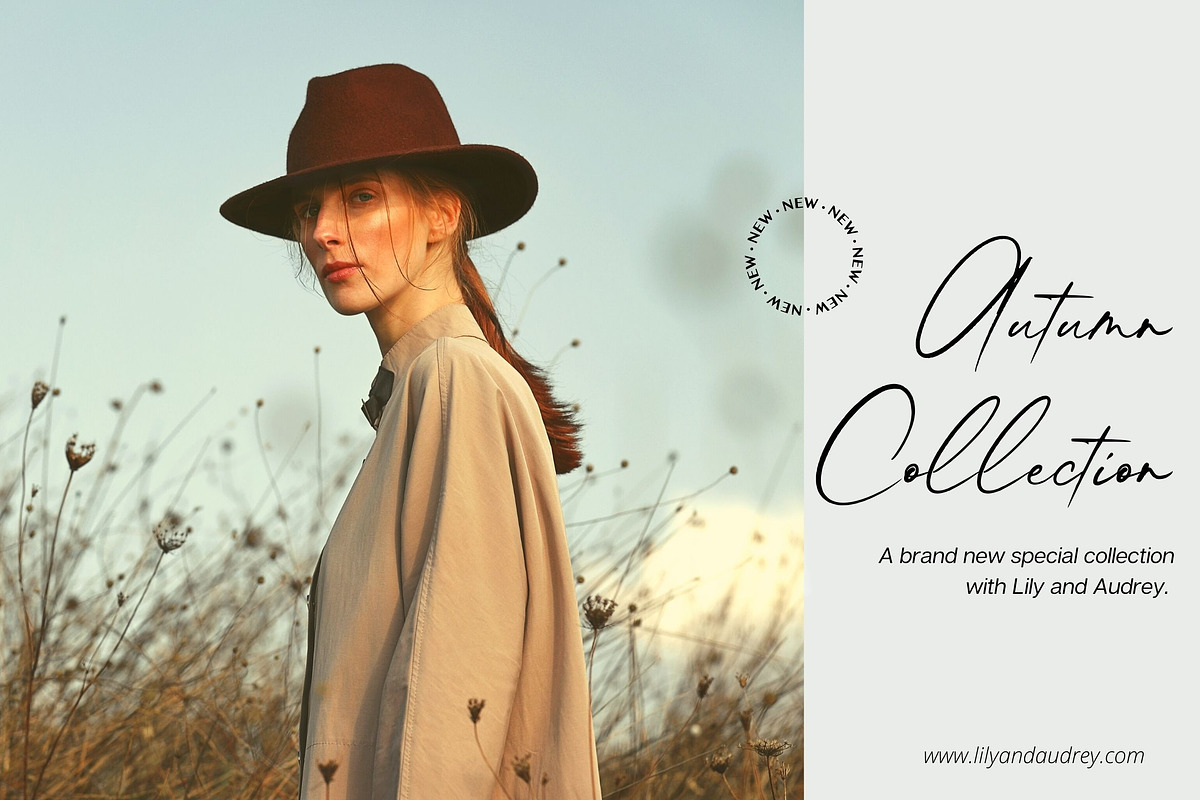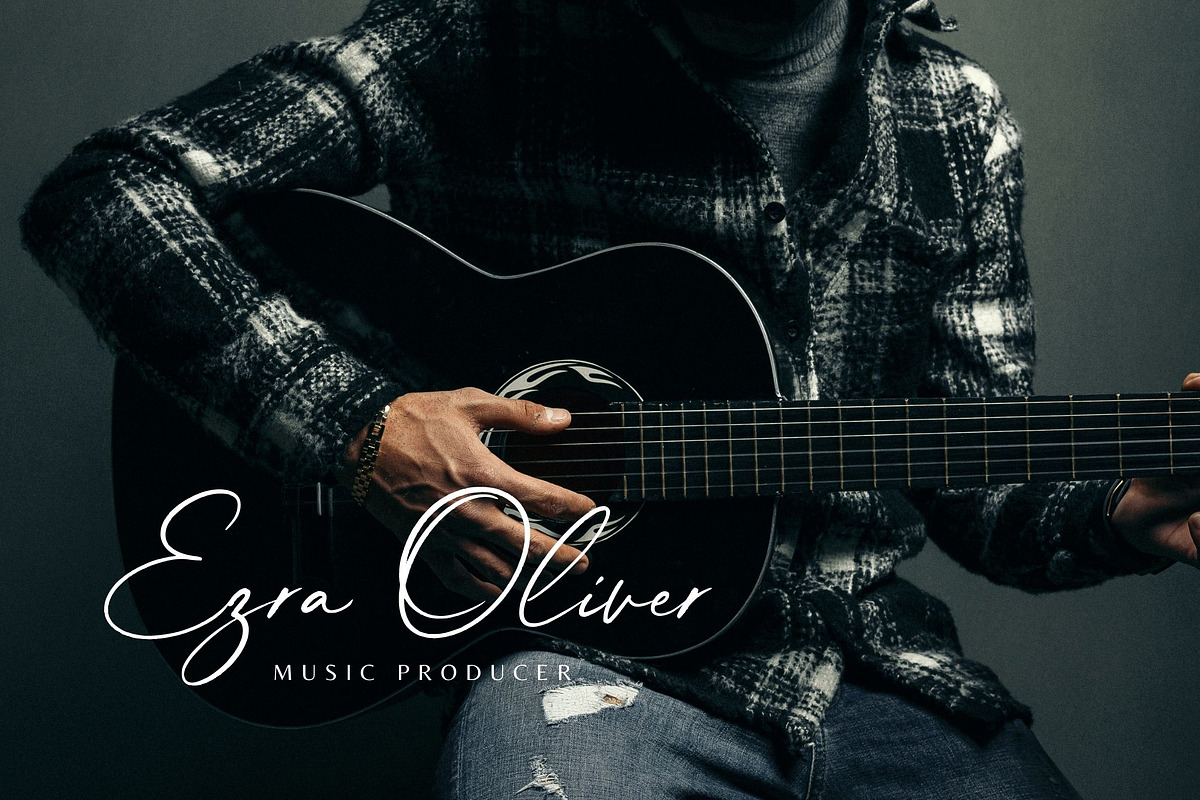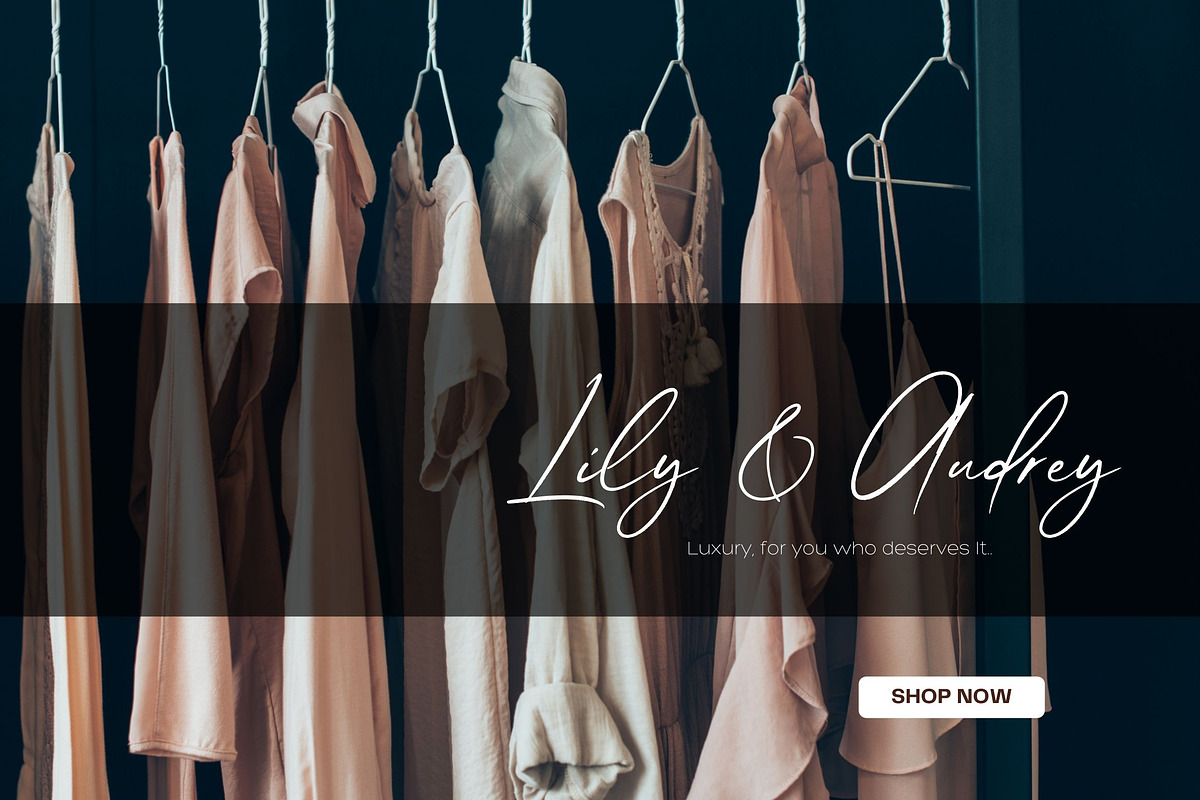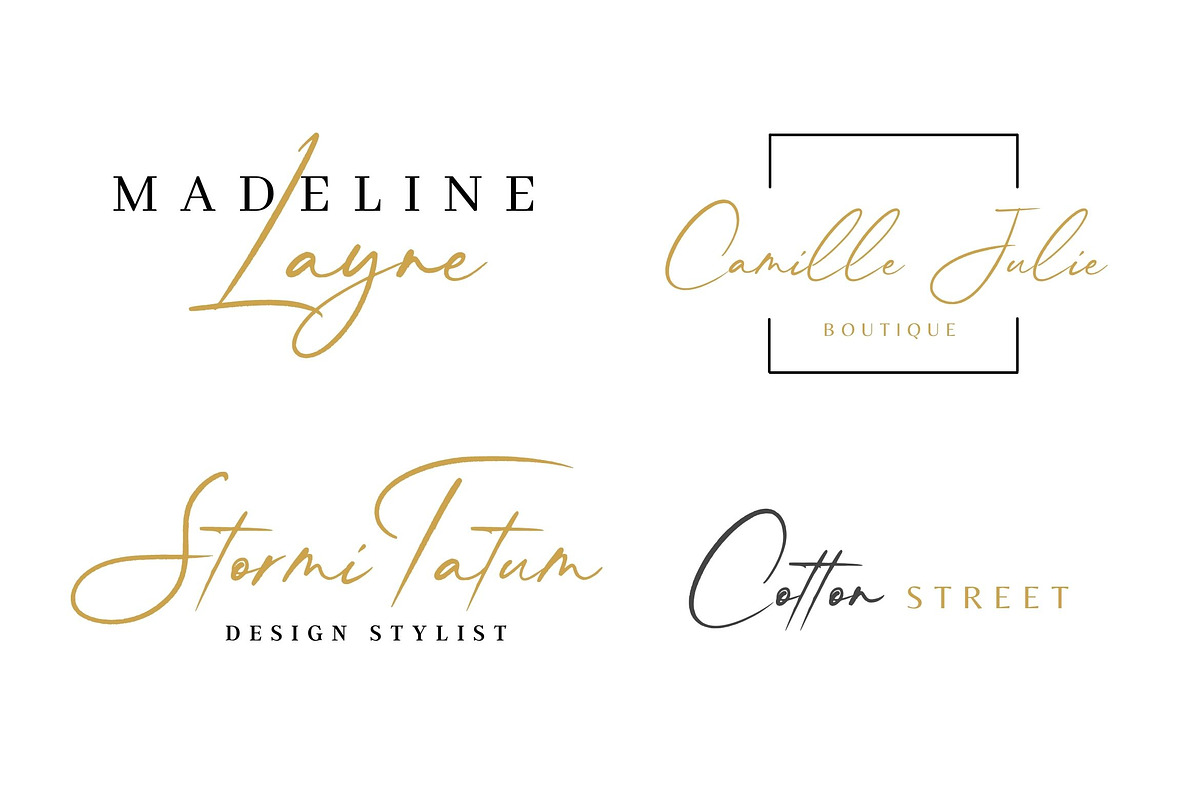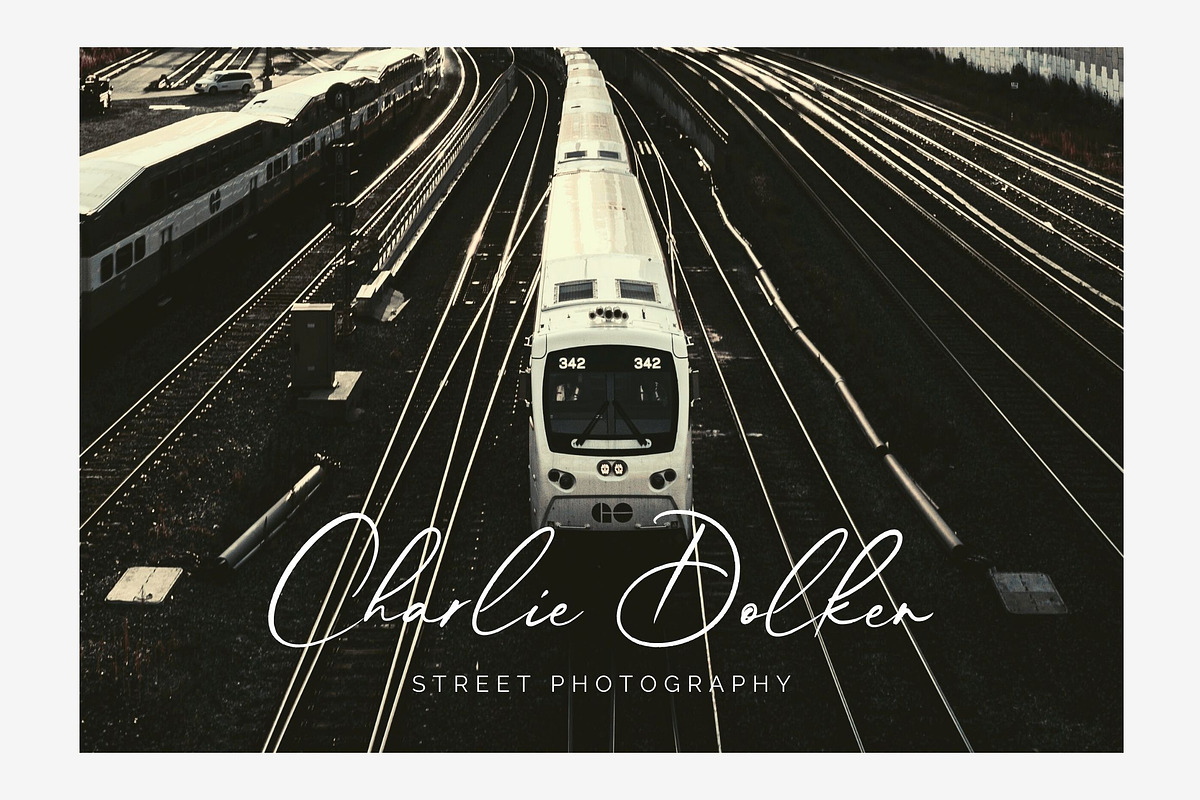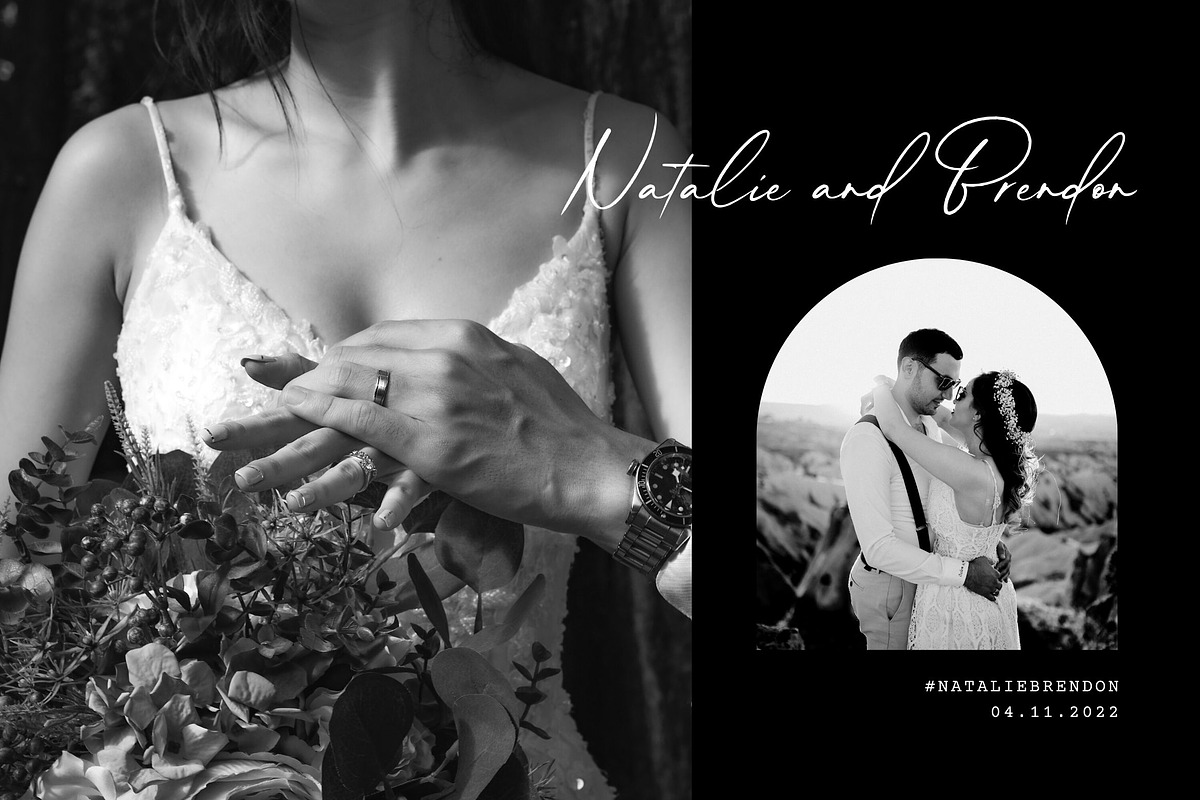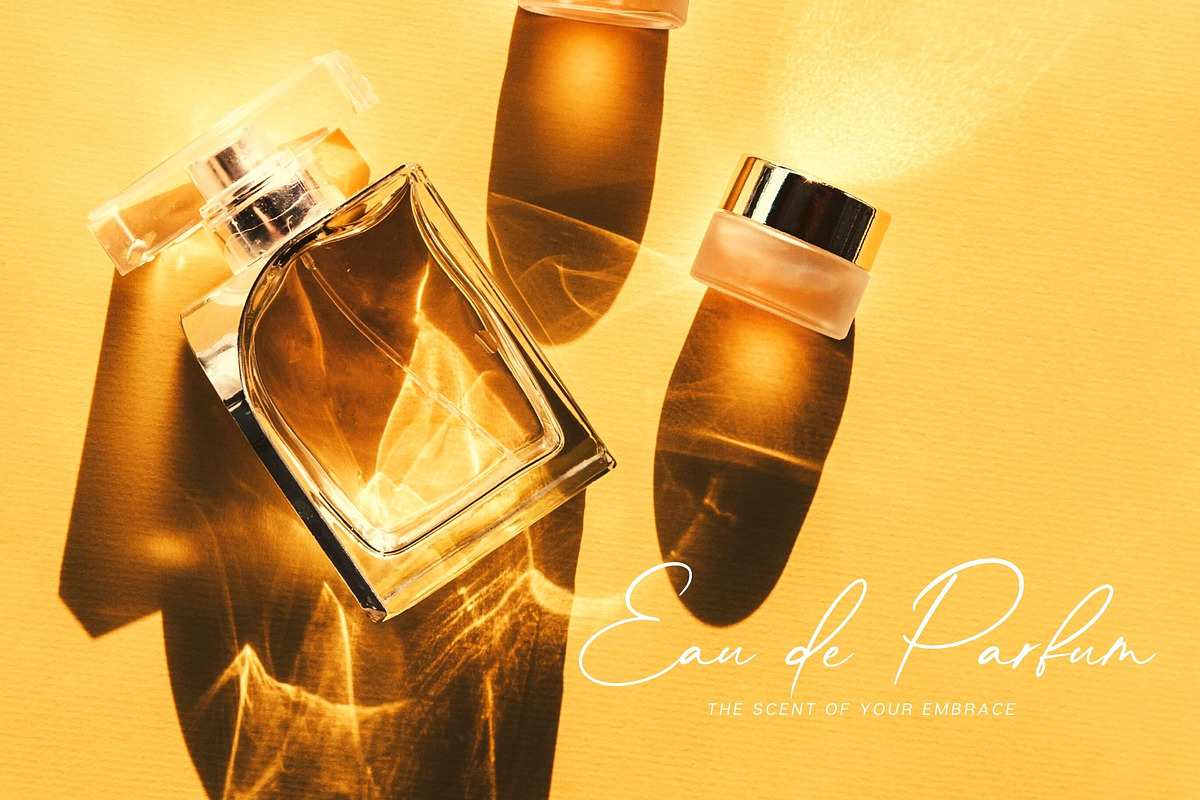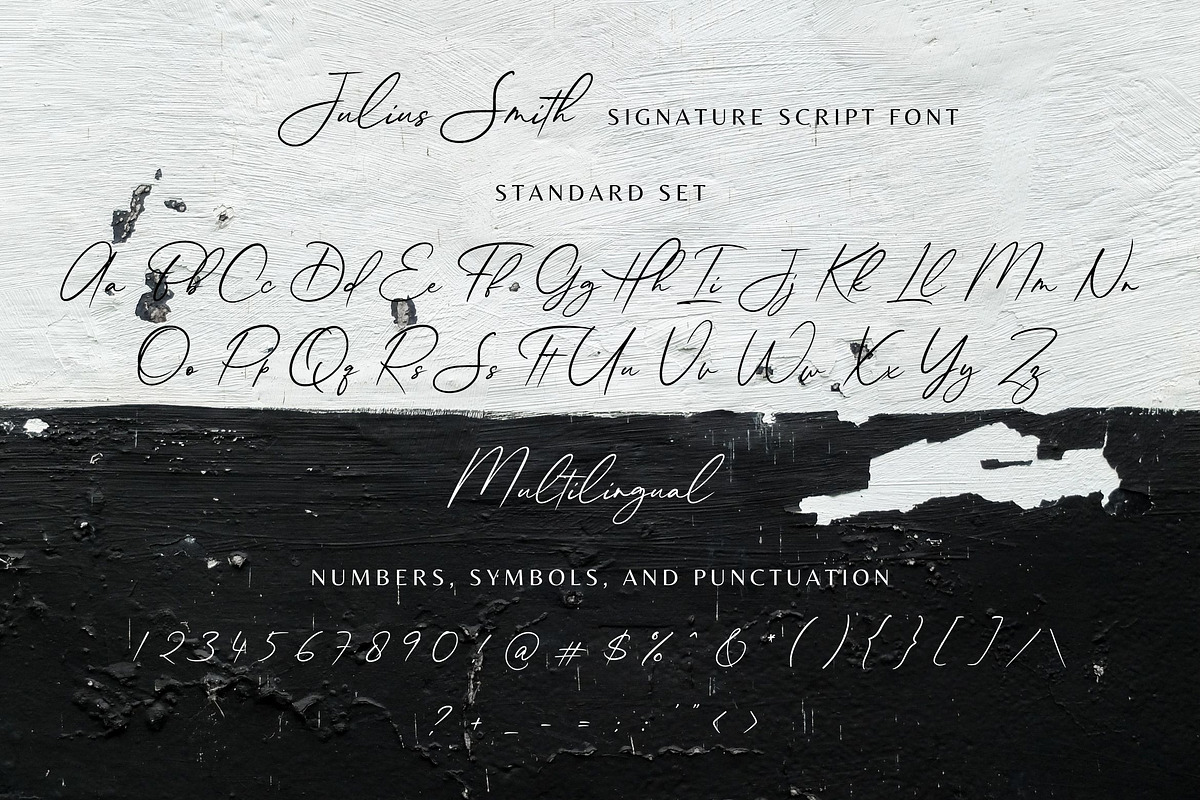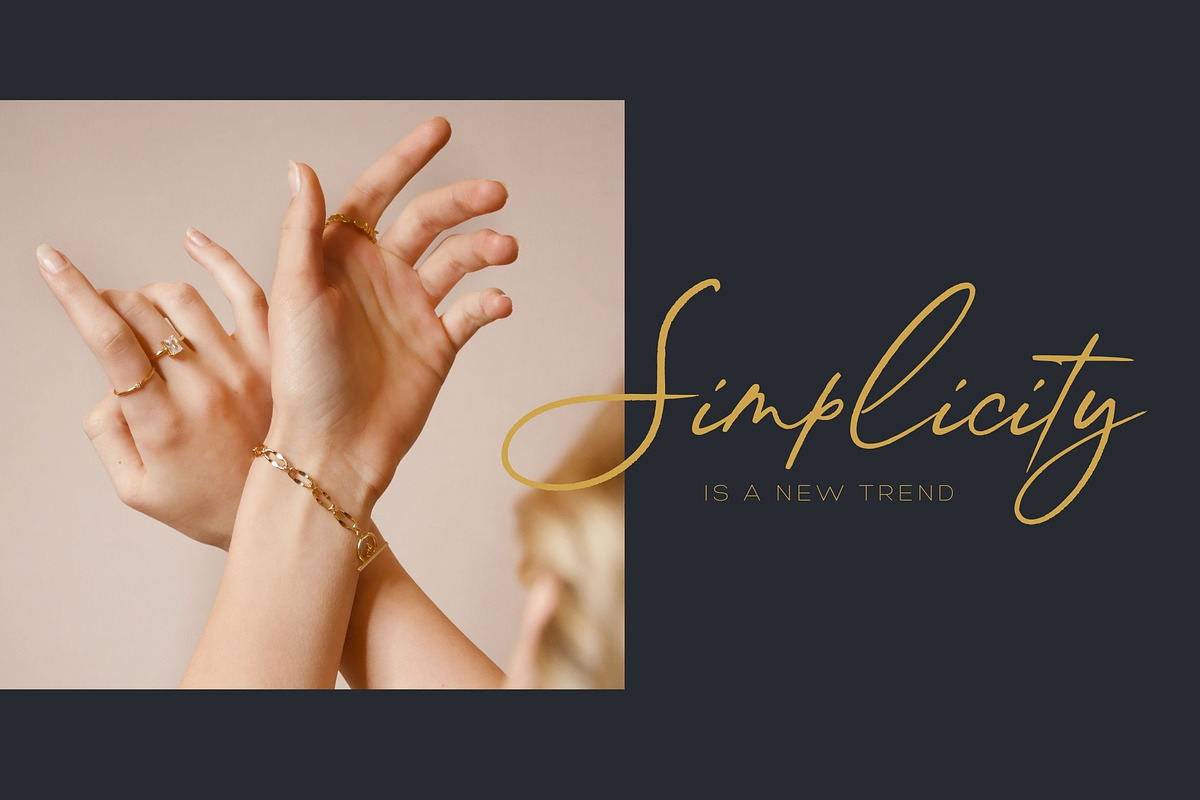
Julius Smith Script
Introducing, Julius Smith - handwritten signature script with a natural flow.
This font is perfect for your creative projects such as Logotype, printed quotes, invitations, cards, product packaging, Web design, Magazine, Book, etc. Also already PUA Encoded!